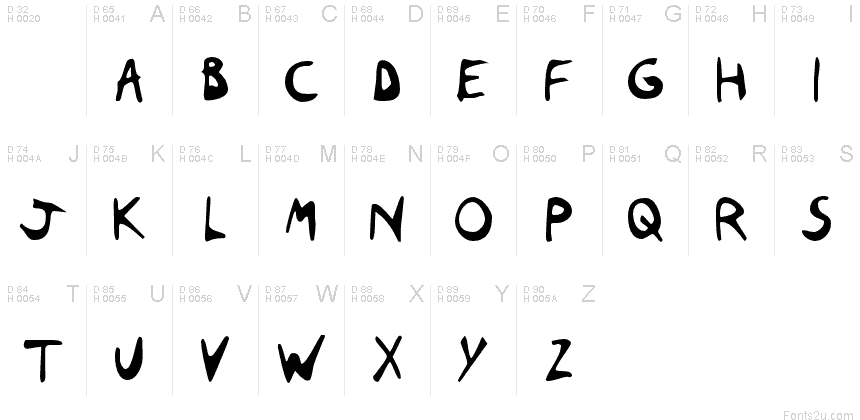
Nas Coxas is a free brush script with broad, irregular strokes and a lively hand-painted silhouette. Its letters shift between rounded bulges and sudden pinched turns, with changing widths that keep the forms restless. Uneven edges and loose alignment make the lettering feel direct rather than carefully polished.
Casual food brands, skate shops, and independent music labels could use its raw marker-like character across packaging and merchandise. It also suits scrappy concert posters. In magazine design, it can turn a feature opener into an expressive piece of lettering rather than neutral type.